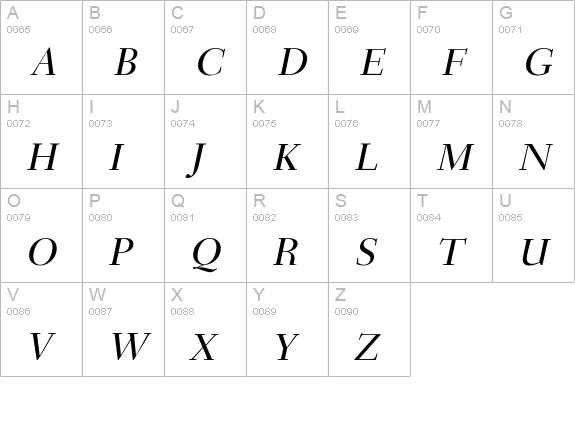
Transit Italic Font Details
Transit Italic is a distinctive, italic variant in the Transit typeface family \xE2\x80\x94 well suited to design and typography projects.
Transit Italic font is a sleek and sophisticated typeface that effortlessly combines elegance with a touch of modernity. Its italicized design adds a unique flair to any project, making it perfect for both professional and creative endeavors. The smooth, flowing curves of Transit Italic font create a sense of movement and grace, making it an ideal choice for conveying a sense of dynamism and energy. Whether used in print or digital media, this font will captivate your audience and leave a lasting impression. What sets Transit Italic font apart is not only its stunning aesthetics, but also the fact that it is available for free. That's right! You can freely download Transit Italic font at FontsMarket.com, making it accessible to everyone, regardless of budget or project size. With its wide range of characters and glyphs, Transit Italic font offers versatility and flexibility in its usage. It effortlessly adapts to various design styles, enhancing the visual appeal of logos, headlines, posters, and more. Its legibility ensures that your message is conveyed with clarity and impact. Transit Italic font is a true testament to the power of typography. It effortlessly combines form and function, providing designers and creatives with a tool that elevates their work to new heights. So why wait? Go ahead and download Transit Italic font for free at FontsMarket.com, and let your creativity soar.